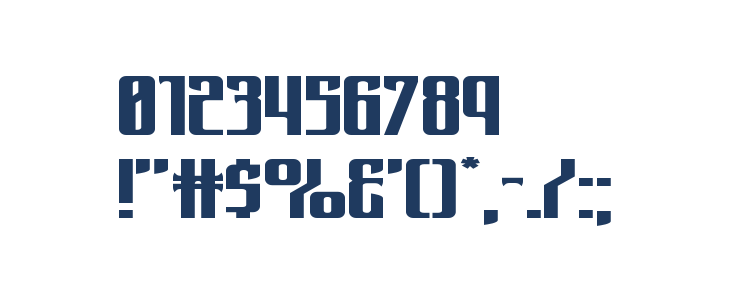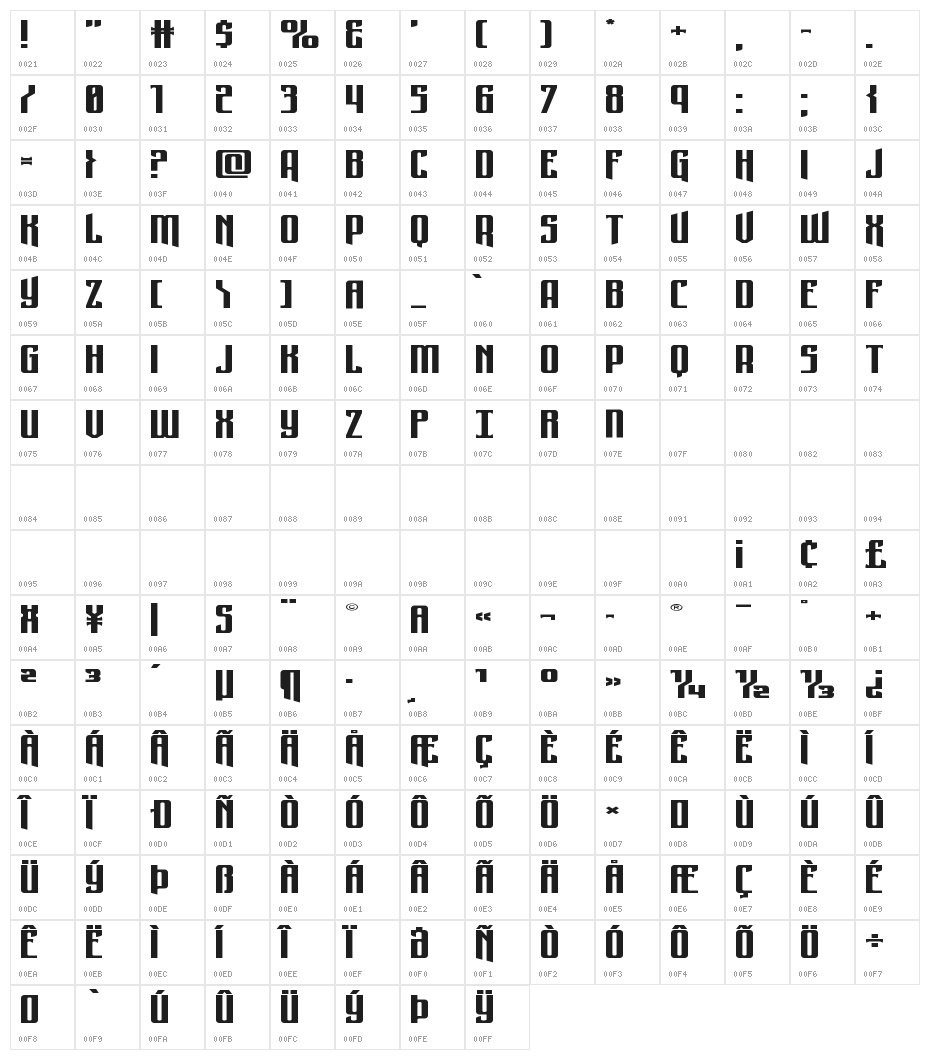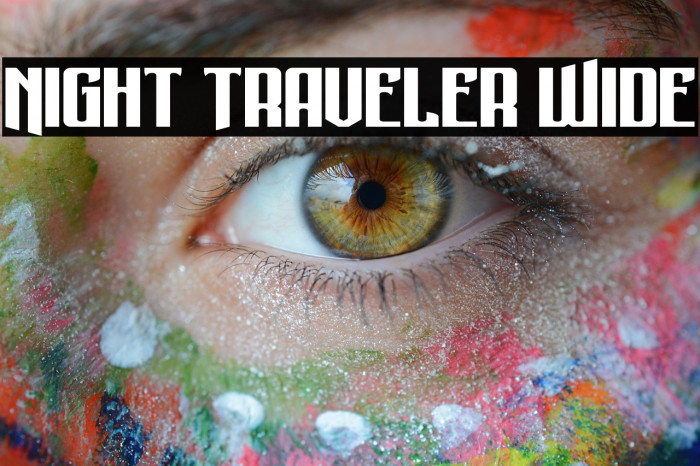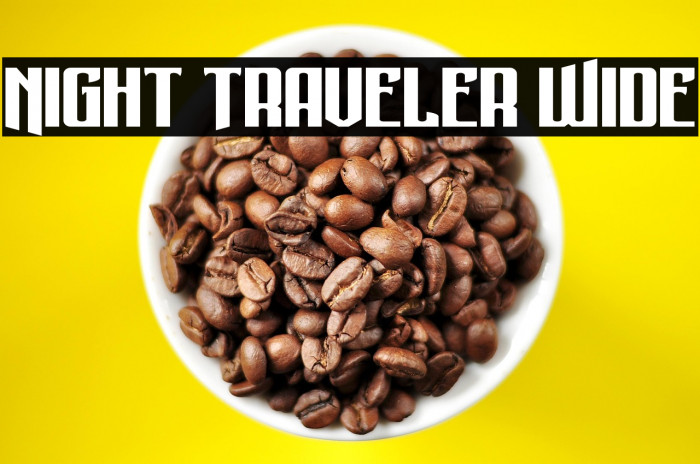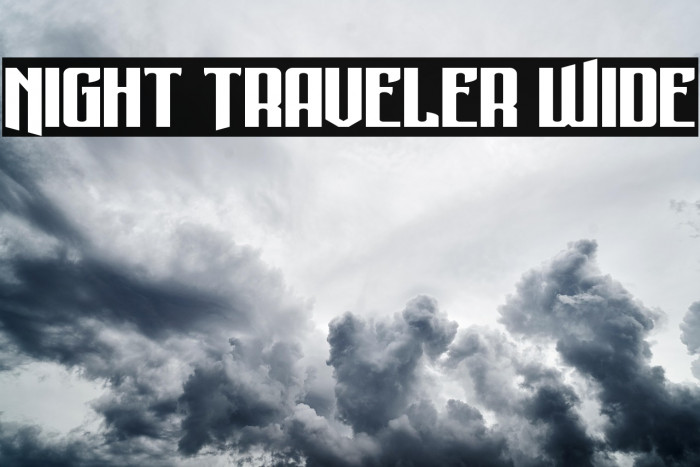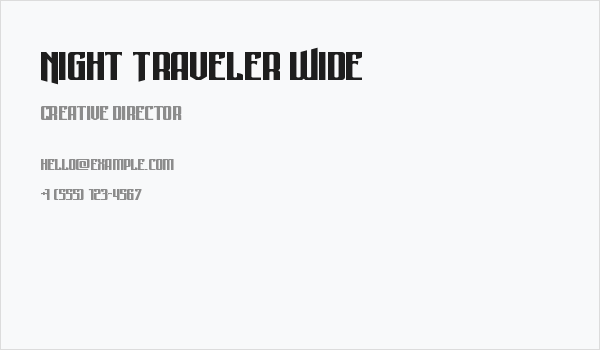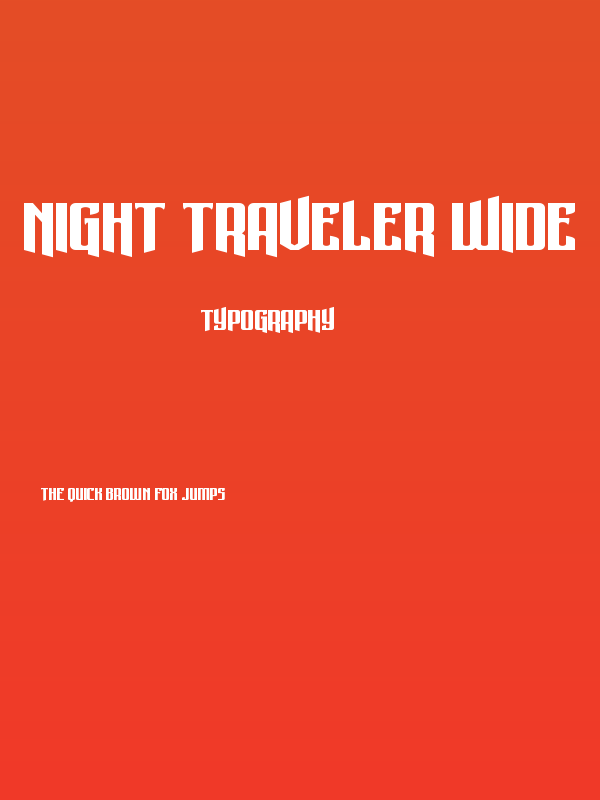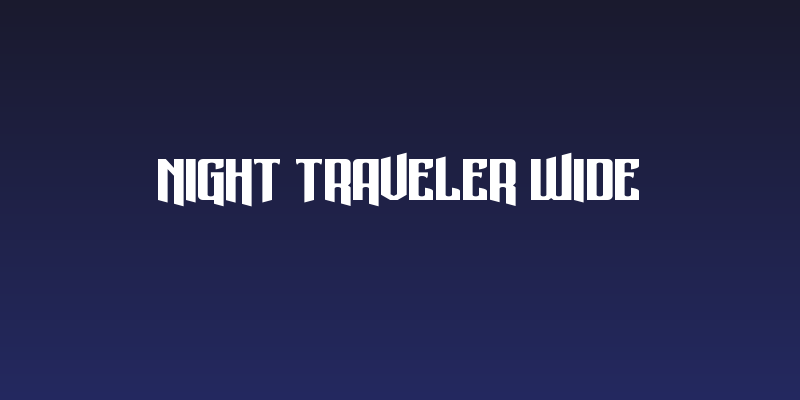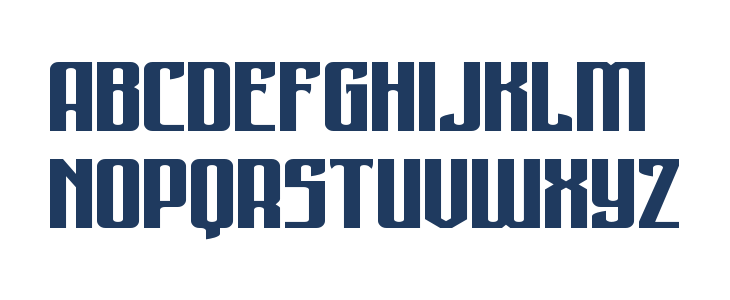
Night Traveler Wide Font
Night Traveler Wide Description
This font features a bold and striking design with a distinctly modern and geometric aesthetic. The characters are wide and blocky, with sharp angles and a strong presence. The uppercase letters are particularly prominent, with a uniform height and consistent width that create a cohesive look. The numbers and special characters maintain this bold style, ensuring readability and impact. The font's design is well-suited for attention-grabbing headlines and logos, where a strong visual statement is required.
| Proposed Projects | This font is perfect for branding projects, poster designs, and any creative work that requires a bold, modern touch. It can be used effectively in advertising, packaging, and digital media to create a strong visual impact. |